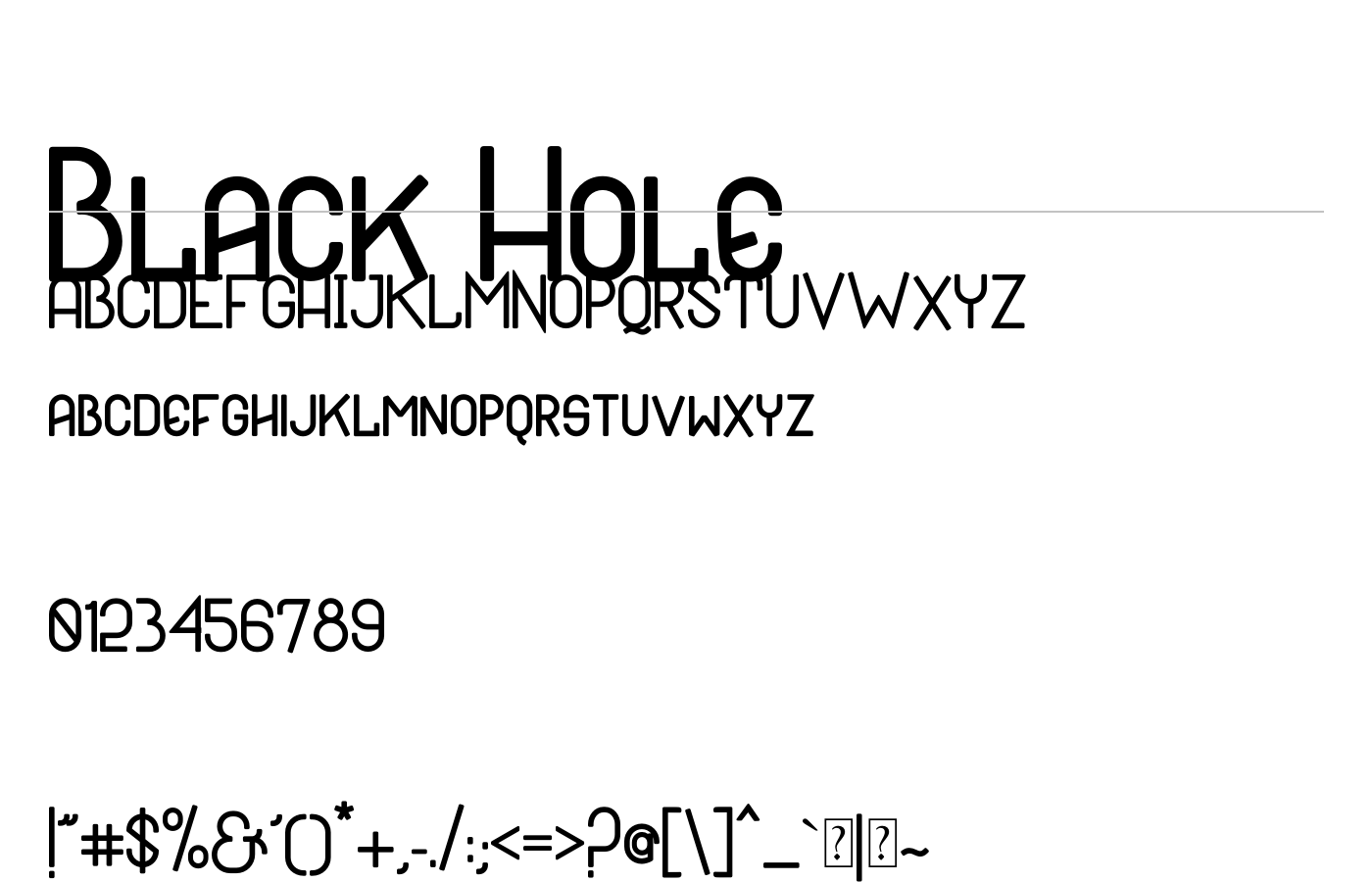
Black Hole Font is a modern sans serif typeface characterized by its tall, narrow letters and clean, geometric lines. With a condensed width, low contrast, and rounded edges, it offers a futuristic and slightly playful feel, making it ideal for contemporary branding, headlines, and tech-focused design projects. Its distinct shapes and structured style make it stand out in digital and editorial contexts where a sleek, space-age aesthetic is desired.
Black Hole Font